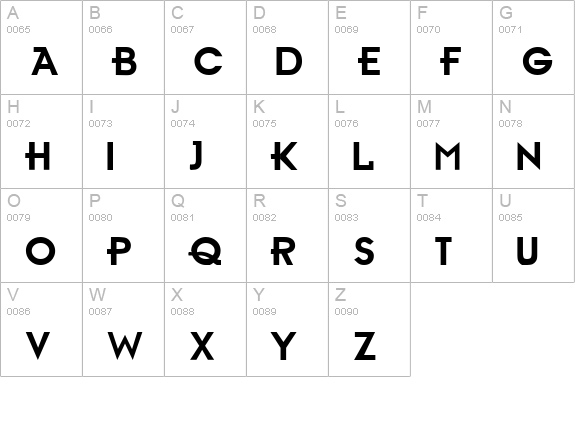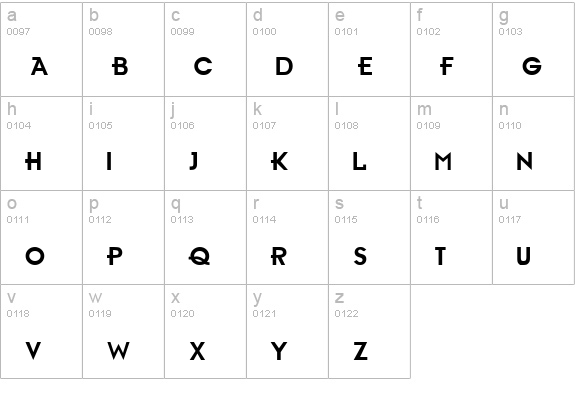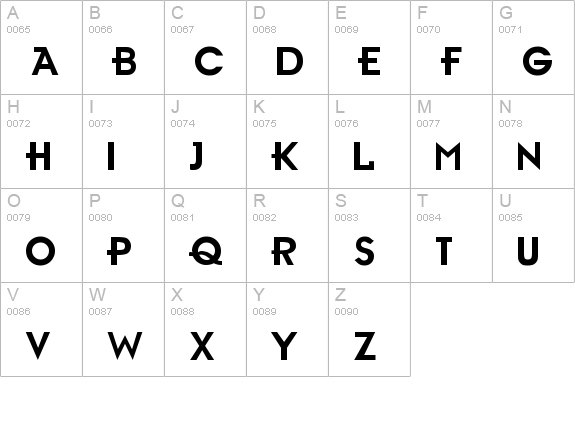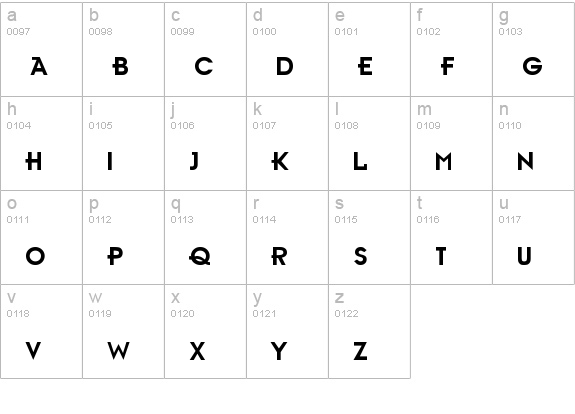
Ambient Medium is a balanced, medium-weight variant in the Ambient typeface family \xE2\x80\x94 well suited to sub-headlines, navigation, and balanced editorial work.
Ambient Medium is a modern and elegant font that effortlessly combines sophistication with simplicity. Its clean lines and gentle curves create a sense of balance and harmony, making it perfect for a wide range of design projects. Whether you're working on a website, a logo, or a print design, Ambient Medium will add a touch of class to your work. What's even better is that Ambient Medium is available for free download at FontsMarket.com! This means you can easily access this beautiful font and use it in your projects without any cost. Don't miss out on the opportunity to enhance your designs with Ambient Medium - download it today and elevate your typography game.